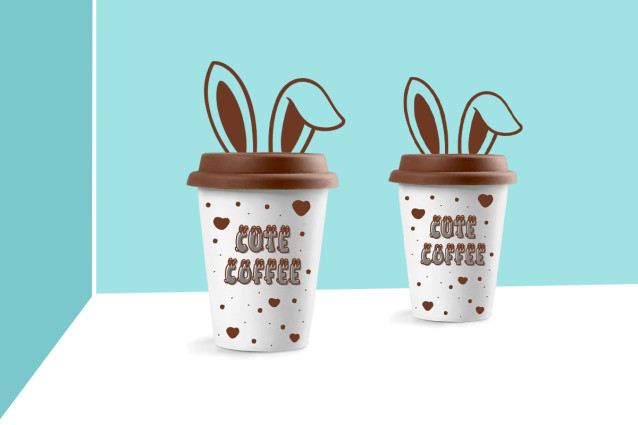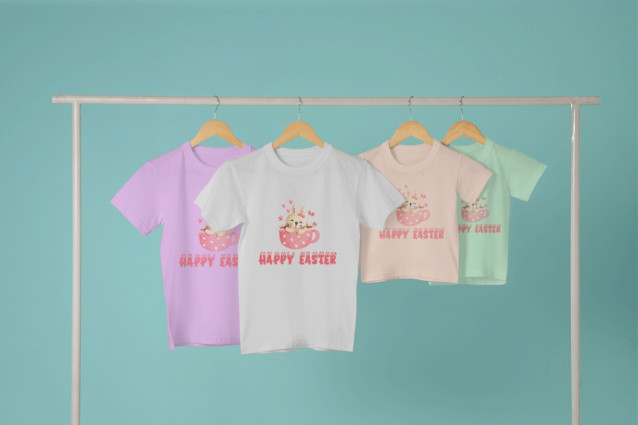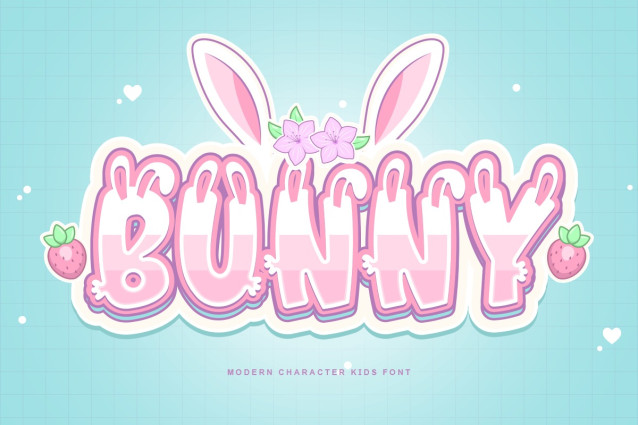
Bunny Character Kids Font
Bunny Character Kids Font A Display typeface, Bunny Modern Character Kids Font features cute and modern font design elements. Each letter of this font is easy to distinguish. You can see it cute from far or near. The letters in this font is shaped like a bunny ear, bubble-shaped, and handwritten. This font is illlegible. This typeface is the best font for kids’ supplies, like school supplies, kids’ clothes, and water bottles. Bunny Modern Character Kids Font can use on roadside posters and billboards containing promotions or product announcements about children. This font can use on book and magazine covers. This font is best for writing short sentences or words as it will look simple and clean. It can use as beverage packaging and cell phone cases. Bunny Modern Character Kids Font can use as a digital font. Perfect for animated videos and can be used as a title or subtitle that appears in the intro to write thank-you notes outside of the video. This font can be included in cartoons and fairy tales. Of all these explanations, the Bunny Modern Character Kids Font is the best children’s font. Our display font collection is compatible to use as; Figma Fonts, Canva Fonts, Freepik Fonts, and Adobe Fonts. They also work as Windows Fonts, and Apple Fonts. For your social media needs, you can use and install fonts in our collection of Espot & Futuristic fonts to use as Instagram Fonts, Facebook Fonts, and Twitter Fonts.